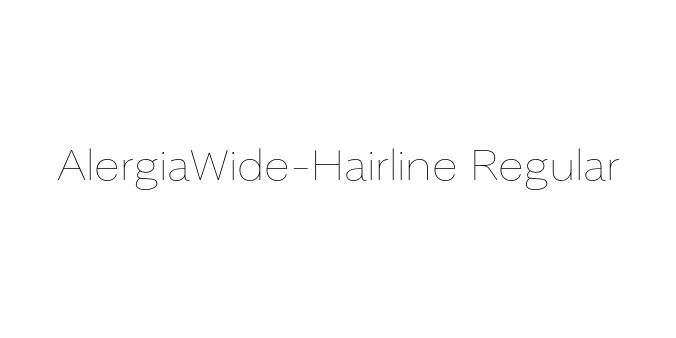
AlergiaWide-Hairline Regular
Designed by Mateusz Machalski
| Category | Sans Serif / Display |
| Designer | Mateusz Machalski |
AlergiaWide-Hairline Regular is a sophisticated member of the Alergia super-family, designed by the acclaimed Polish type designer Mateusz Machalski. This typeface represents a harmonious fusion of classic geometric proportions and contemporary grotesque sensibilities, specifically tailored for high-end editorial and branding projects. Its extremely thin 'Hairline' weight emphasizes the architectural precision and wide stance of the glyphs, making it an ideal choice for minimalist and avant-garde designs.
Launched as part of the broader Alergia collection, the Wide variant offers a distinct horizontal emphasis that commands attention in display settings. The font features a high x-height and open apertures, ensuring clarity even at its most delicate weight. Whether used for luxury fashion mastheads or innovative digital interfaces, AlergiaWide-Hairline Regular provides a sense of breathability and modern elegance that is hard to replicate with standard sans-serifs.
AlergiaWide-Hairline Regular Best Uses
Perfect for high-fashion magazine headlines and artistic layouts.
Ideal for luxury logos and minimalist corporate identities seeking a premium feel.
Suited for large-scale typography in web headers and experimental motion graphics.